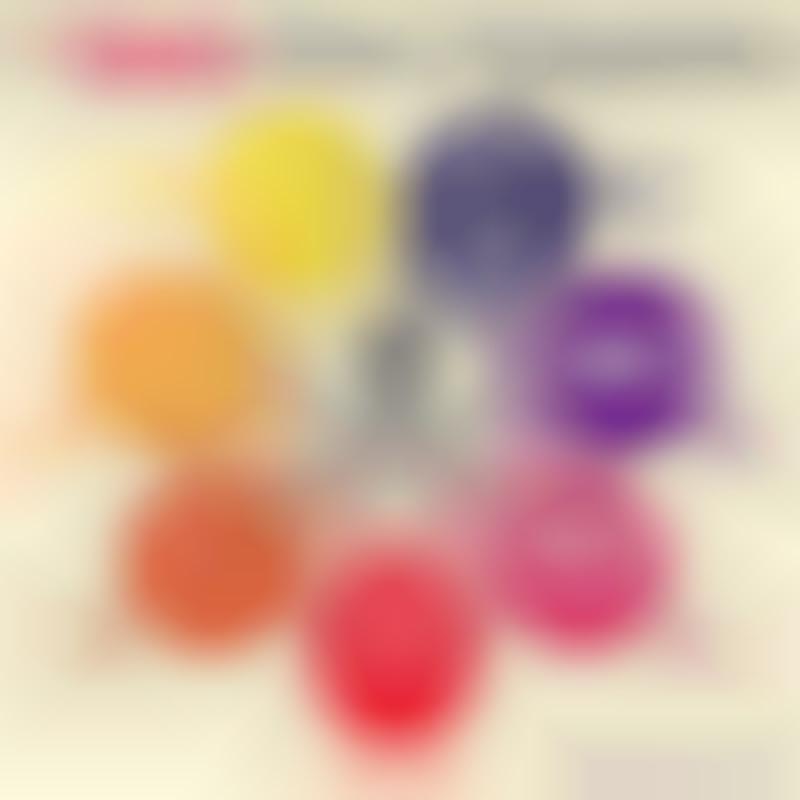
There's a skill to using writing fonts to create posters, banners and presentations. If you want to know what are the worst typography sins to commit, Design Mantic put together this nifty infographic that ranks the worst faux-pas you can make when using typefaces in your design projects.
The '7 Deadly SIns of Typography' is laid out like a pie chart which each sin taking up a portion of the circle. In the middle of the circle is a comical pirate skull to remind you how bad committing one of these writing sins is. The infograph includes topics like "unreadable fonts," "neglected tracking," "poor contrasting" and "to many fonts" as some of the key things to avoid when playing around with various typefaces.
Sinful Typography Infographics
This Infograph Reveals the Worst Sins to Commit With Writing Fonts